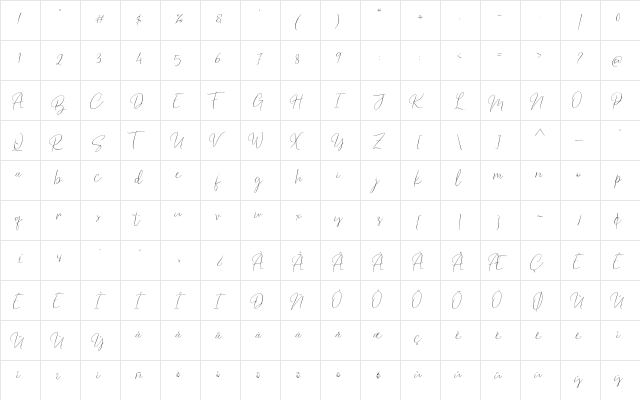
Barosaki Script Regular
| Foundry | Ferdiansyah_PointLabSTD |
| Designer | Ferdiansyah_PointLabSTD |
Design Context for Barosaki Script Typeface
Barosaki Script brings a calligraphic fluidity to the page — its connecting strokes and expressive curves give it an unmistakably human quality.
Font Pairing: Combine Barosaki Script with a simple geometric sans for maximum contrast — the tension between flowing curves and clean structure is a classic typographic pairing.
Pro Tip: Use Barosaki Script for short runs of text — names, titles, or taglines. Extended body copy in script faces tires the eye quickly.